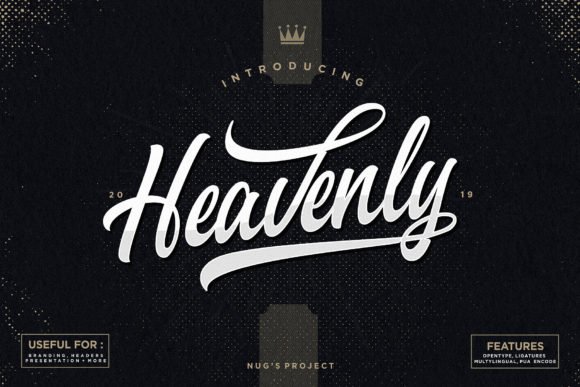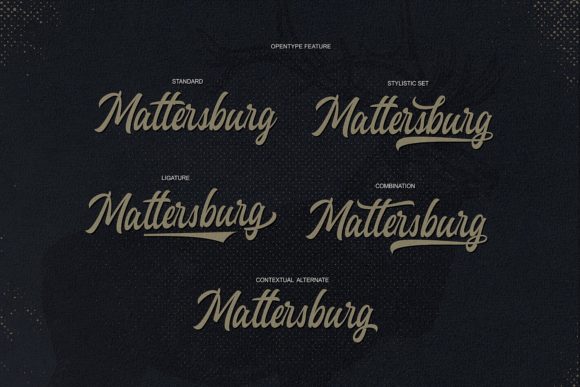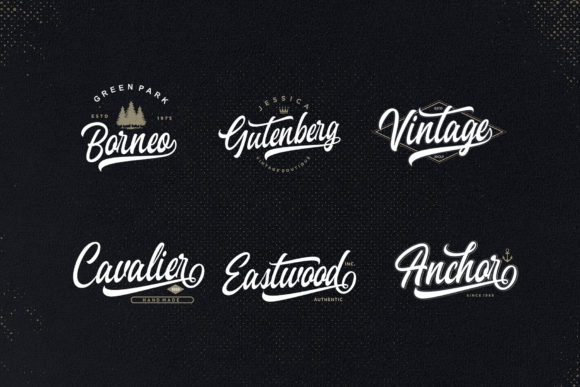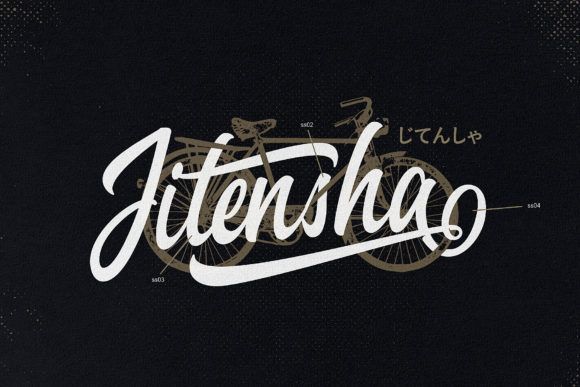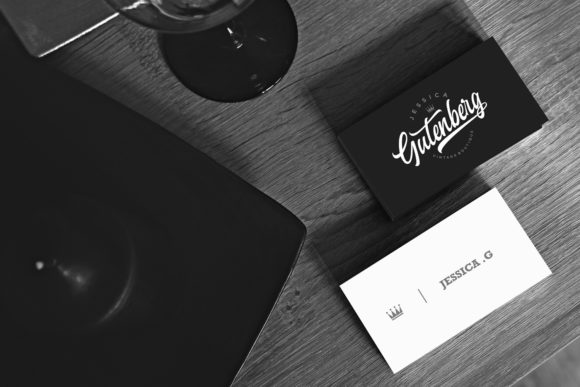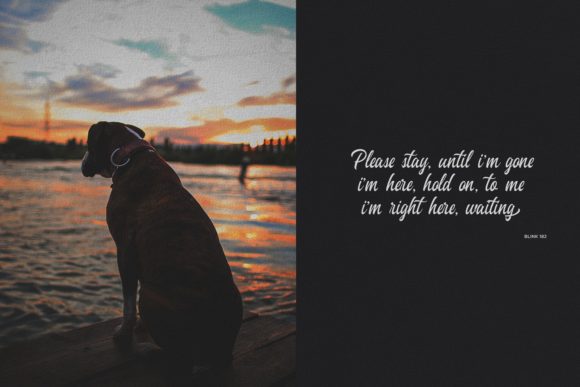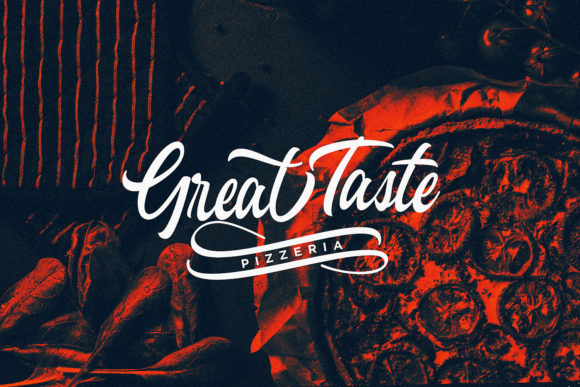
The Perfect Font to Elevate Your Designs
Do you remember the feeling of excitement and inspiration that comes with discovering a new font? Maybe it was the perfect script to match your brand’s personality or the bold sans-serif that caught your eye. Whatever it was, you likely felt like your designs just got a whole lot better. For designers, finding the right font can be a game-changer, and today we’re shining the spotlight on one that’s sure to leave a lasting impression – the Heavenly Font.
This striking script font is designed to bring a touch of elegance and sophistication to your designs. With its flowing characters and unique flair, the Heavenly Font is perfect for creating eye-catching posters, branding materials, and advertisements. Whether you’re a seasoned pro or just starting out, this versatile font is sure to become a valuable addition to your design toolkit.
Heavenly Font Key Features
- Font Family: A collection of 12 unique, hand-drawn fonts designed to evoke a sense of elegance and sophistication.
- Unique Characteristics: Each font features intricate details, flourishes, and subtle textures, making them perfect for adding a touch of luxury to designs.
Designer Review: Heavenly Font
Heavenly Font is an interesting typeface that has its strengths and weaknesses. ✨ First of all, I love the unique character of this font – it’s elegant and sophisticated, making it perfect for high-end branding and advertising projects. The subtle curves and flowing lines give it a sense of luxury, which can elevate any design to the next level. ✨ The font also comes in a variety of weights and styles, making it highly versatile and suitable for a wide range of applications.
However, there are some limitations to consider. ⚠️ One of the main issues is that the font can be quite difficult to read at smaller sizes. The delicate lines and intricate details can get lost when scaled down, making it challenging to use in certain contexts. Additionally, the font’s unique character can also make it less accessible to readers who are not used to it. This might be a problem if you’re working on a project that requires a more universal appeal.
Overall, Heavenly Font is a great addition to any designer’s toolkit, but it’s essential to use it thoughtfully and consider the potential limitations. With the right project and the right use, it can truly shine and make a lasting impression.
- Unique, elegant character
- Highly versatile with various weights and styles
- Perfect for luxury branding and advertising
- Can be challenging to read at smaller sizes
- May not be suitable for universal appeal
Practical Application Guide: Heavenly Font
Tips for Getting the Most Out of Heavenly Font
Here are some tips to help you get the most out of Heavenly Font:
- Experiment with different font sizes and styles to achieve the desired look.
- Combine Heavenly Font with other design elements to create a unique and eye-catching design.
- Use Heavenly Font in conjunction with other fonts to create a harmonious and balanced design.
Heavenly Font is perfect for:
- Choose the “Heavenly Font” from your font library.
- Set the font size to 24-30 points for the main text.
- Embellish the invitation with floral patterns and lace elements to match the whimsical theme.
- Pair Heavenly Font with a bold, modern font for the wedding date and location.
- Use a watercolor effect to add a soft, ethereal quality to the invitation design.
- Combine Heavenly Font with illustrations of flowers, birds, or other whimsical elements to create a unique and memorable design.
Heavenly Font Project Ideas
Design a set of elegant and whimsical wedding invitations using Heavenly Font. The script font will add a touch of romance and sophistication to your invitation design.
To use Heavenly Font in this project:
Project 2: Spiritual Quote Graphics
Create inspiring graphics using Heavenly Font to display spiritual quotes. The font’s elegant and refined style will add depth and meaning to your designs.
To use Heavenly Font in this project: